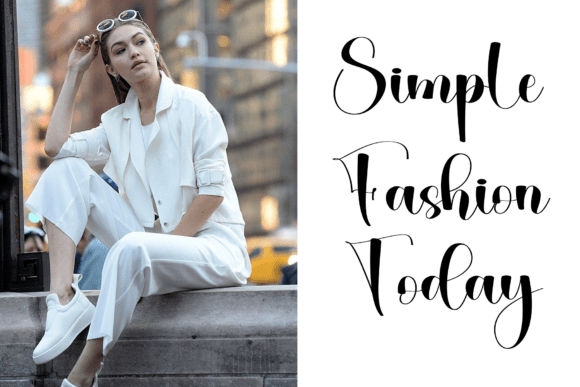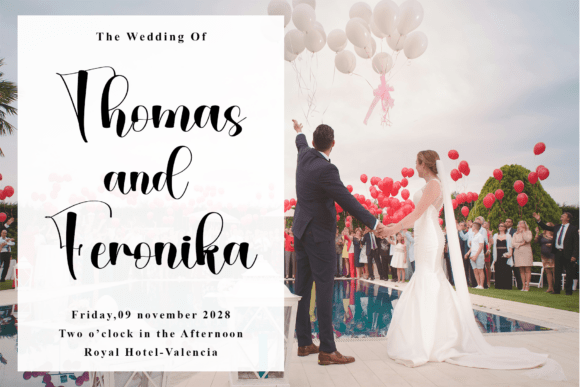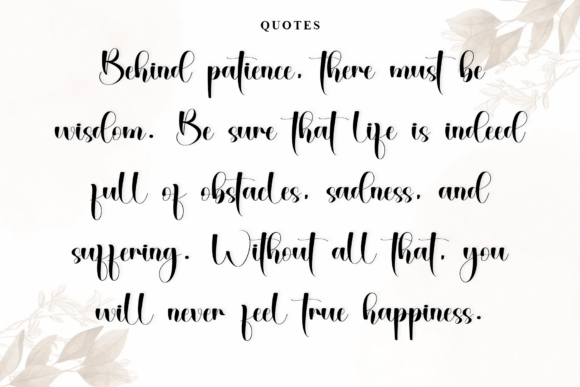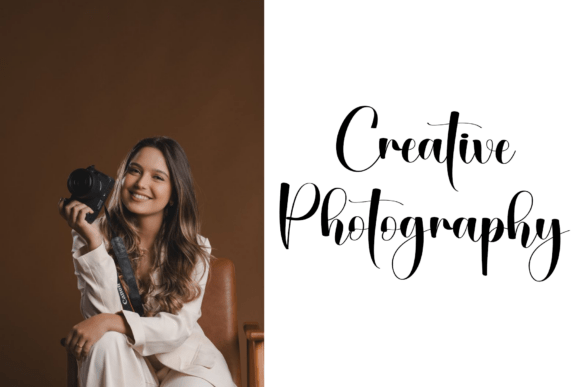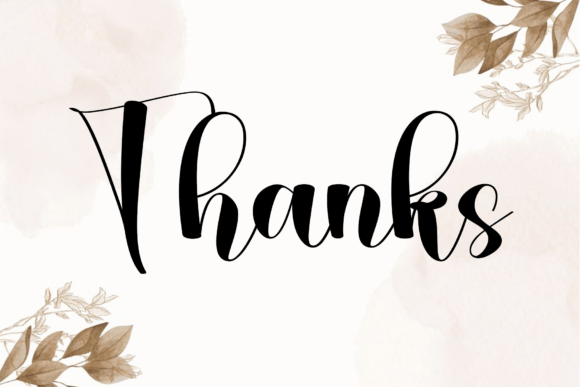
The Elegance of Calligraphy Font: A Designer’s Delight
I’ll never forget the time I was working on a wedding invitation project, and my client asked for a font that exuded elegance and sophistication. I scoured the internet, tried out countless fonts, but nothing seemed quite right. That was until I stumbled upon the Calligraphy font. Its minimal and neat handwriting style instantly caught my eye, and I knew I had found the perfect fit. In this article, I’ll share with you why I’m obsessed with Calligraphy font and how you can make the most of it in your creative projects.
- ✅ Minimal and neat handwriting style that’s perfect for a wide range of projects
- ✨ Highly versatile and can be paired with various design elements
- ✅ Easy to read, even in smaller sizes
- ✨ Supports OpenType features, glyphs, and stylistic alternates for added creativity
- ⚠️ Some users may find the font too delicate for certain design applications
- ⚠️ Limited availability of bold or heavy weights, which may limit its use in certain contexts
The Designer Inspiration Behind Calligraphy Font
Calligraphy font was inspired by the art of traditional calligraphy, where skilled artists would painstakingly craft beautiful lettering by hand. The font’s creator aimed to capture the essence of this timeless art form and make it accessible to designers and crafters around the world. While the true identity of the font’s creator remains a mystery, their passion for elegant typography shines through in every detail of Calligraphy font.
| Font Name | Calligraphy Font |
| Author | Black line |
Q: Is Calligraphy font available in different weights?
A: While Calligraphy font may not have a wide range of weights, it does come in a standard weight that’s suitable for most design applications.
Q: Can I use Calligraphy font with OpenType features?
A: Yes, Calligraphy font supports OpenType features, glyphs, and stylistic alternates, which can add an extra layer of creativity to your designs.